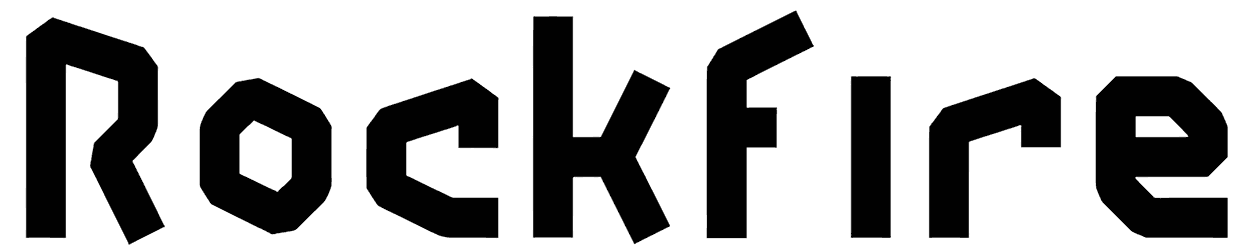
Rockfire Font
We believe giving a high-quality project to the customers is the best way to grab their attention. If you have a common belief, we would take this honor to introduce you to a wonderful geometric font such as Rockfire. The polygonal style of this stone font can easily impress the audience and share a feeling of futuristic modernity, dynamism, or vivacity with them.